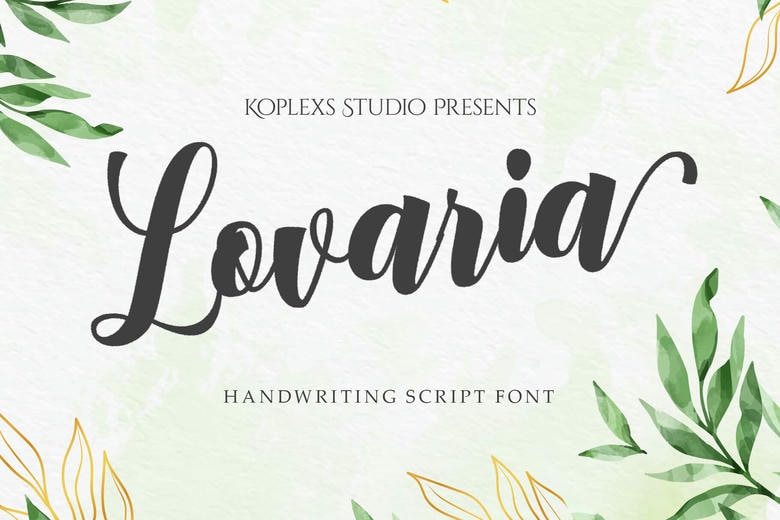
Lovaria Font
Lovaria is a Handwriting Script Font, a read and unique font face that is classified under the Sale script typeface. Lovaria mirrors most of the current handwritten techniques hence suitable for projects that need that little extra touch of class. Whether you’re working on straightforward wedding invitations or on more elaborate logo or message creation and greeting cards, Lovaria lends an air of authenticity to handwritten work.
The design adopts rounded shapes of curves, and balanced letters to make it applicable in any digital platform and print. Lovaria offers spacing for multilingual support and coming with a perfectly formed ligatures, it guarantees your designs a unique, professional touch. Hypereal font can be used in branding projects, any letterhead, quotes, and any other creative work that requires personal impression.
Lovaria Handwritten Script Font